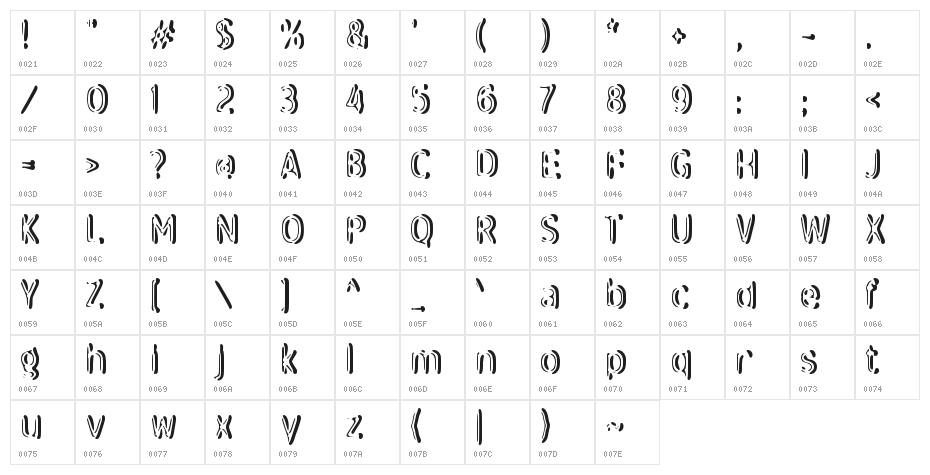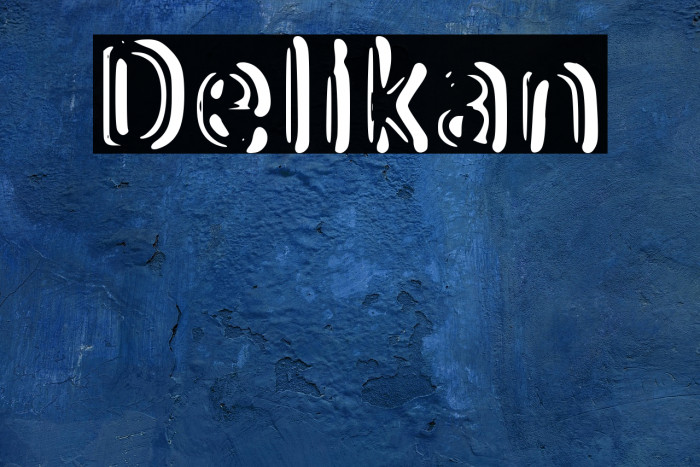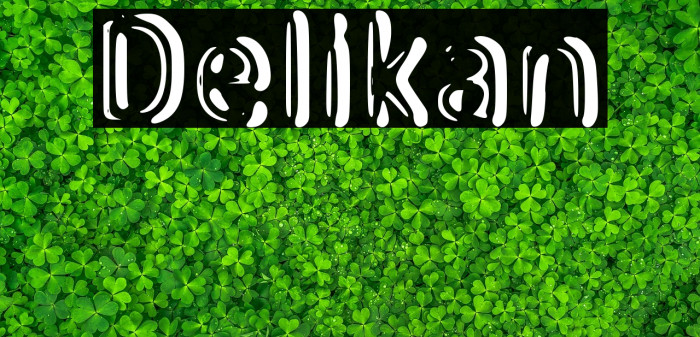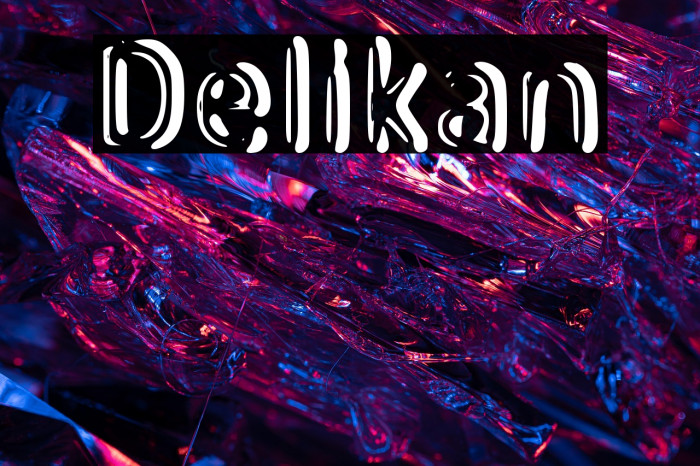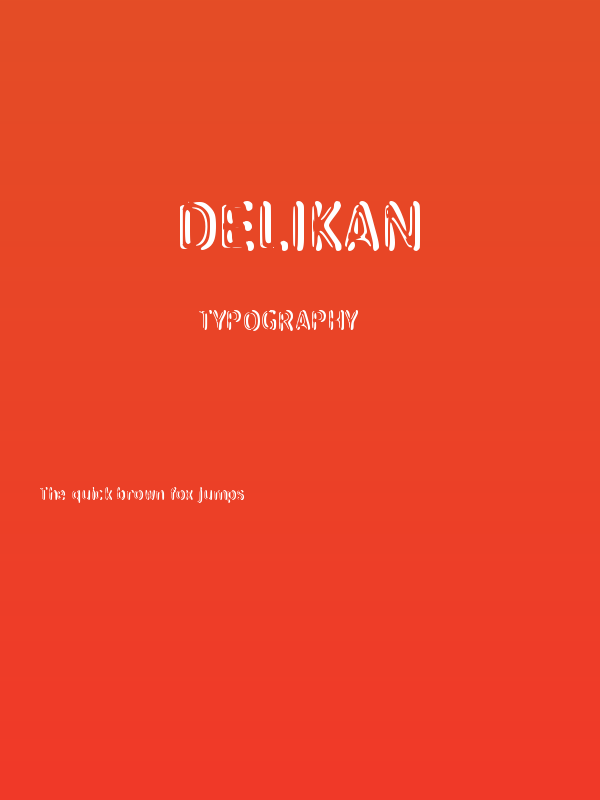
Delikan Font
Delikan Description
This font features a bold and decorative style with a unique stencil-like appearance. The characters are designed with a combination of solid and hollow spaces, creating a dynamic and eye-catching effect. The uppercase and lowercase letters maintain a consistent style, with rounded edges and a playful, artistic flair. The numbers and special characters follow the same design principles, ensuring uniformity across the font. This font stands out due to its creative use of negative space, making it suitable for projects that require a distinctive and modern look.
| Overall Style | Modern, Decorative |
| Proposed Projects | Ideal for branding, poster design, album covers, and any project that requires a bold, artistic statement. |